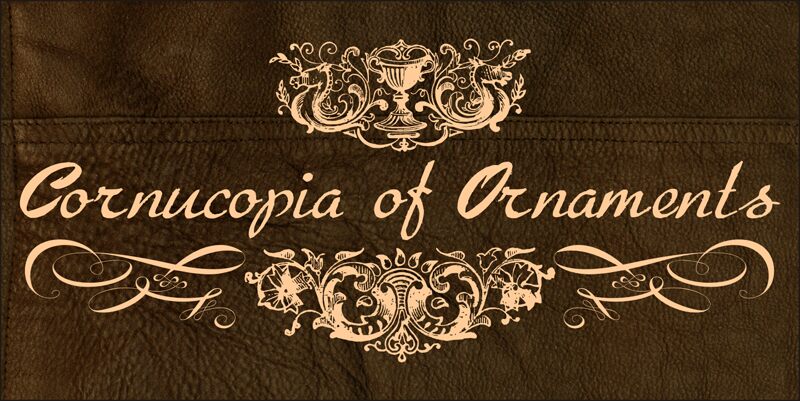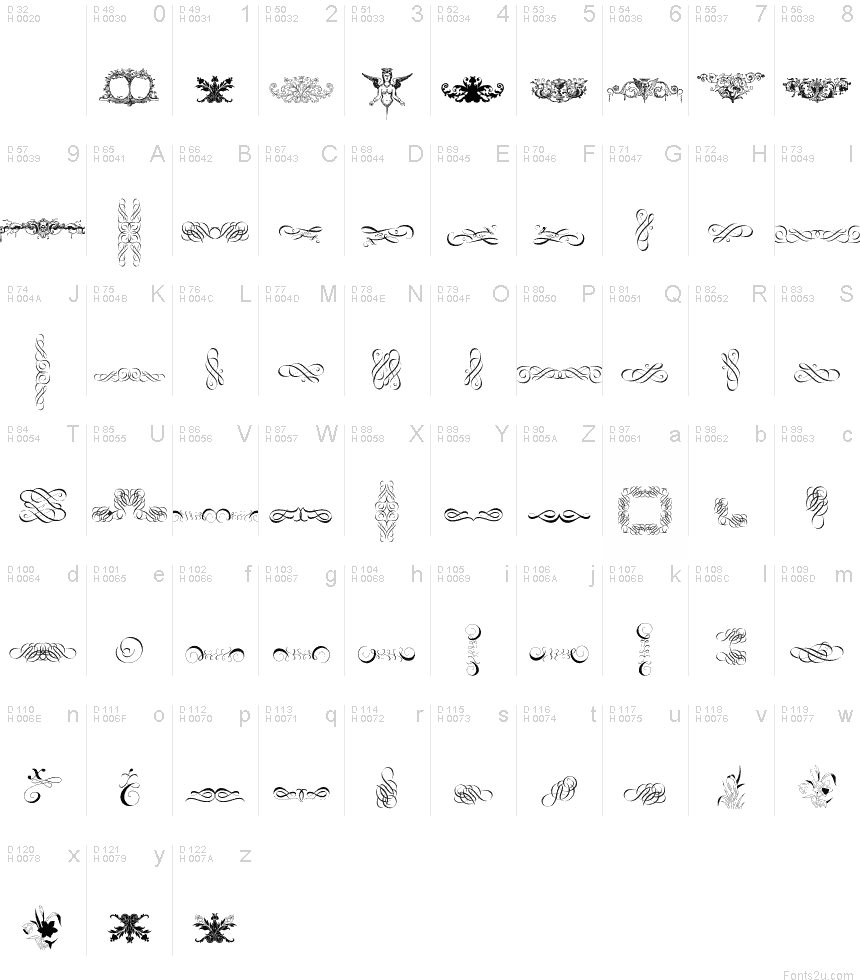
Cornucopia of Ornaments by Paulo W. is a free art dingbat font filled with elaborate flourishes and decorative dividers. The collection ranges from compact looped knots to broad, sweeping scrollwork, with fine hairline curls, heavier strokes, mirrored forms, and occasional leaf or floral details.
Publishing is its strongest medium, especially for chapter openings, book covers, and ornamental section breaks. It also suits invitations and heritage packaging. The curling forms evoke engraved decoration and formal pen ornament, making them particularly apt for historical fiction, period events, and traditional craft themes.
Cornucopia of Ornaments